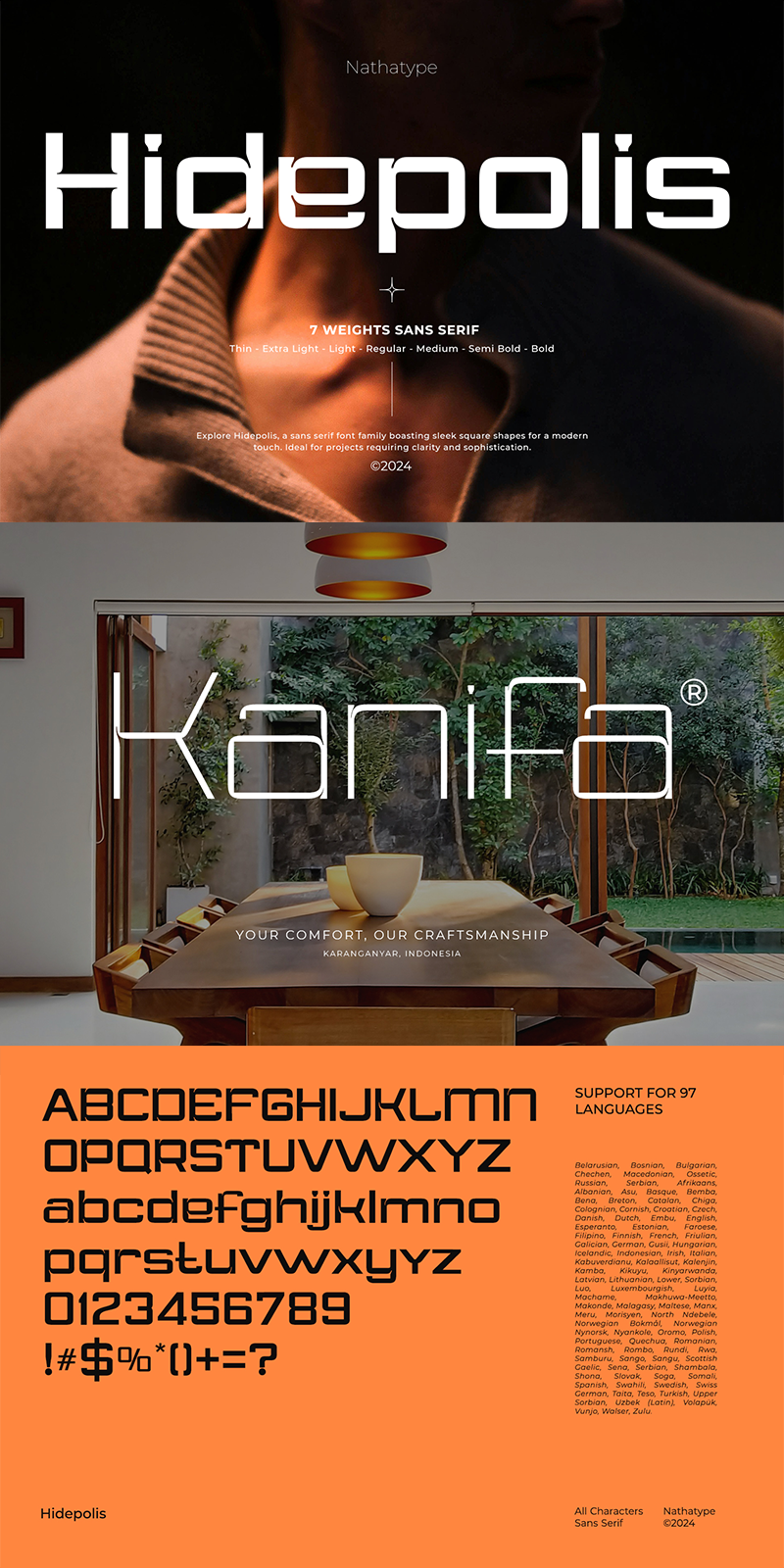
Hidepolis Font
Designed by Natha Type
About Hidepolis
Introducing Hidepolis, a sleek and versatile sans-serif font family. With seven different font weights to choose from, Hidepolis offers a wide range of options to suit your design needs. Each font weight in the Hidepolis family is made in box-shaped design that exudes a sense of strength and stability.